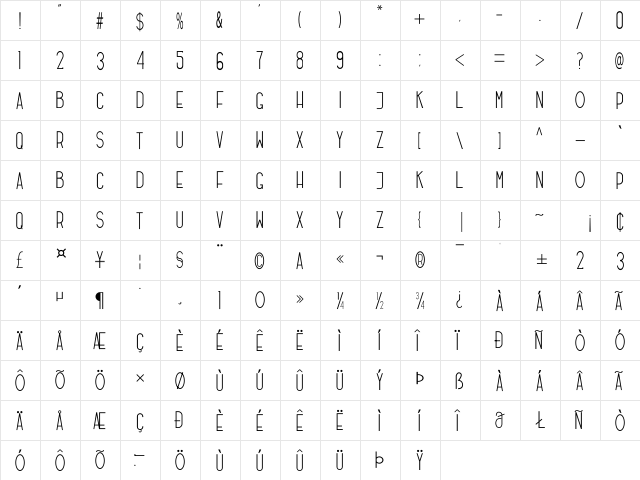
Freeds Regular
| Foundry | Monocotype Studio |
| Designer | Refialdi Dwi Putranto |
Design Context for Freeds Typeface
Freeds takes a measured approach to typography — its balanced proportions and neutral character make it a reliable workhorse for both digital and print work.